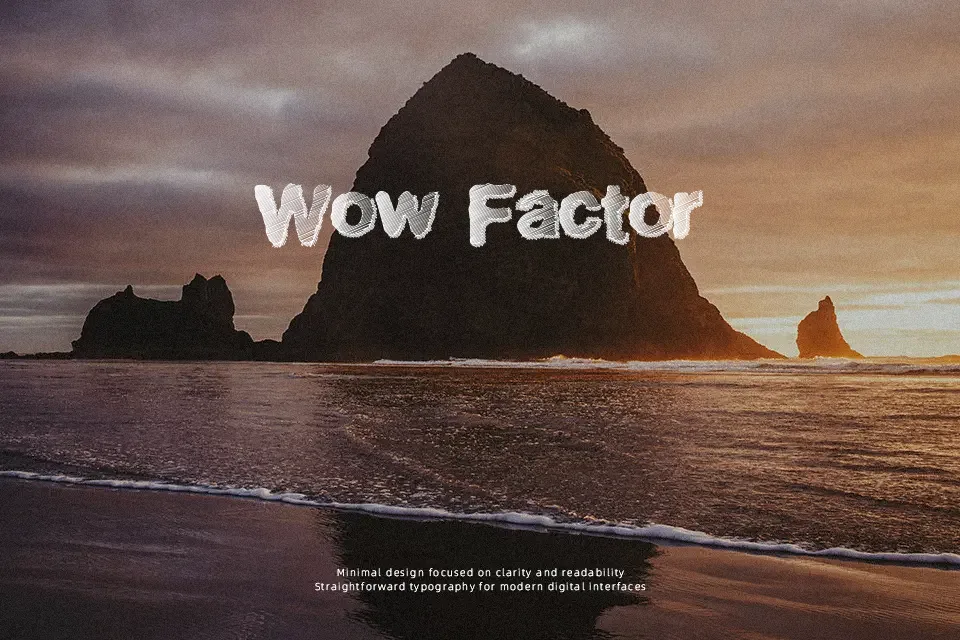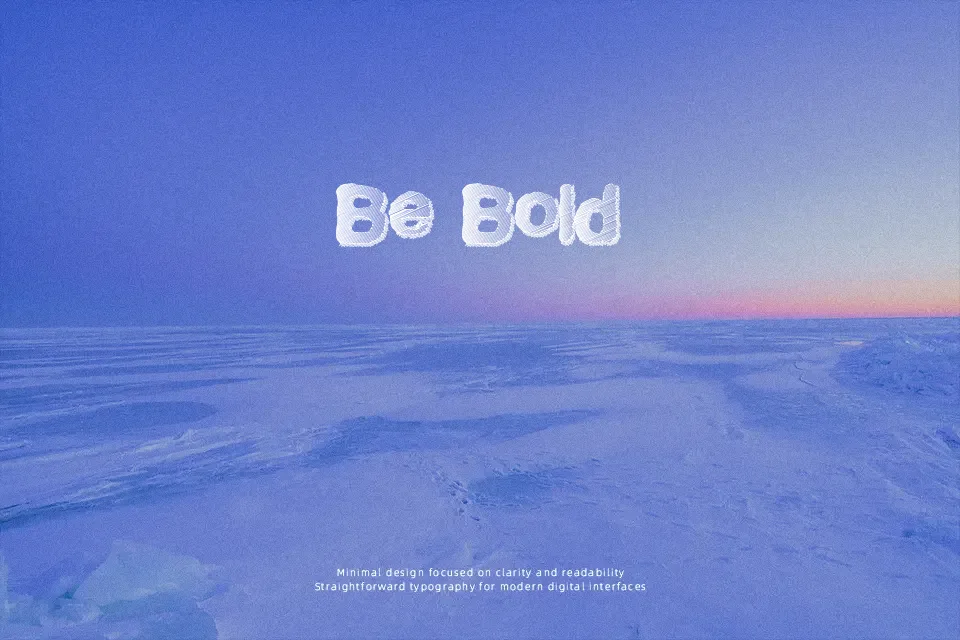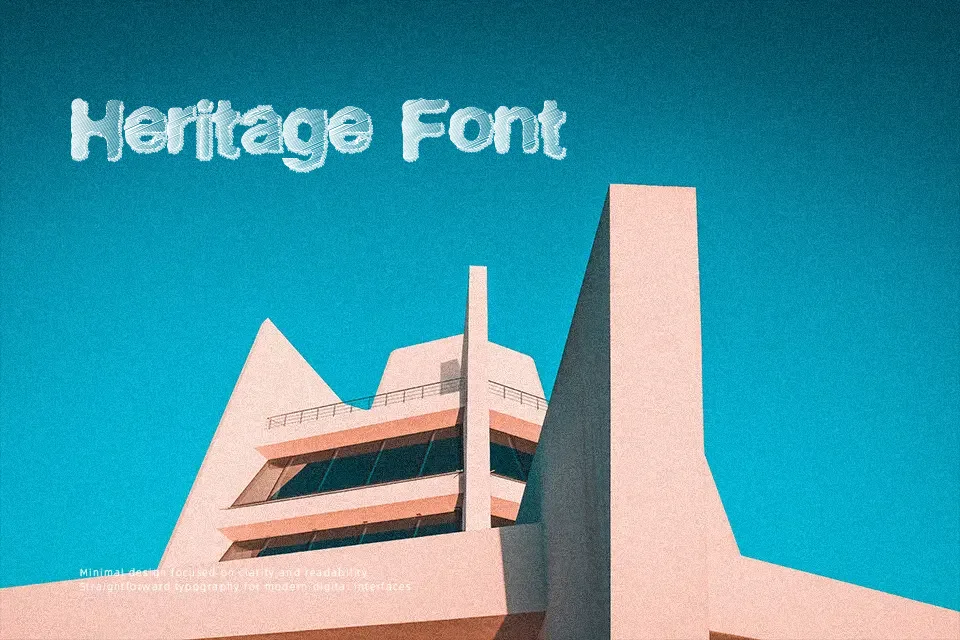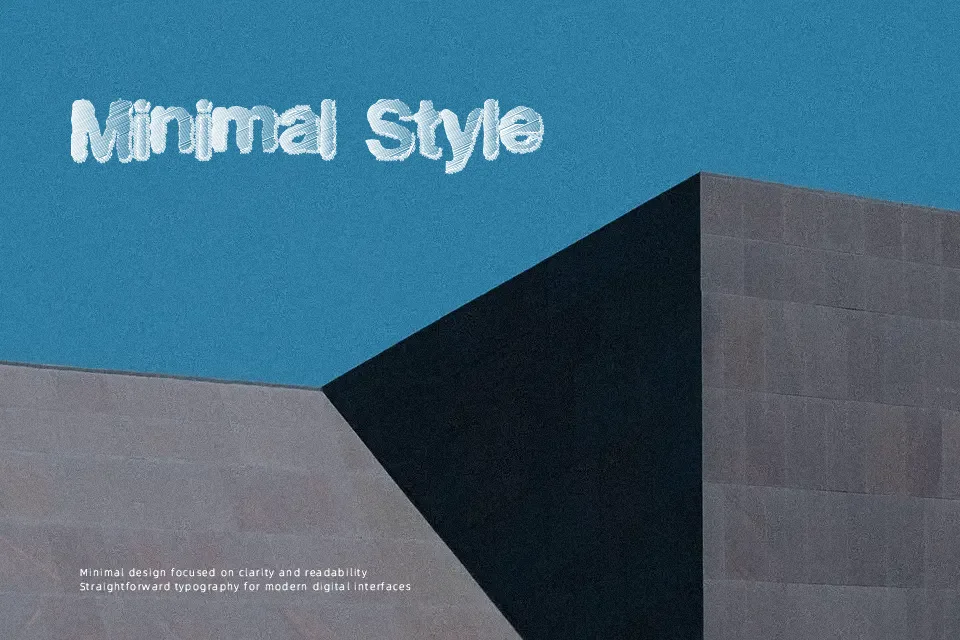
Super Freak Font
Super Freak Font uses exaggerated decorative letterforms with an uneven visual rhythm and attention-grabbing proportions. Its shapes read most effectively in large, isolated words, where the individual contours and bold display presence have room to register. Spacing appears better suited to short headlines than compact information settings, and the design is more expressive than neutral. The typeface can give posters, event graphics, and music-related artwork a conspicuous headline treatment. In practical use, the decorative structure becomes less clear at smaller sizes, so it is best kept away from lengthy copy and tightly packed captions.
Best For: music posters,event flyers,album artwork,apparel graphics
Perfect for headline, logo, and music, with a bold and decorative style.